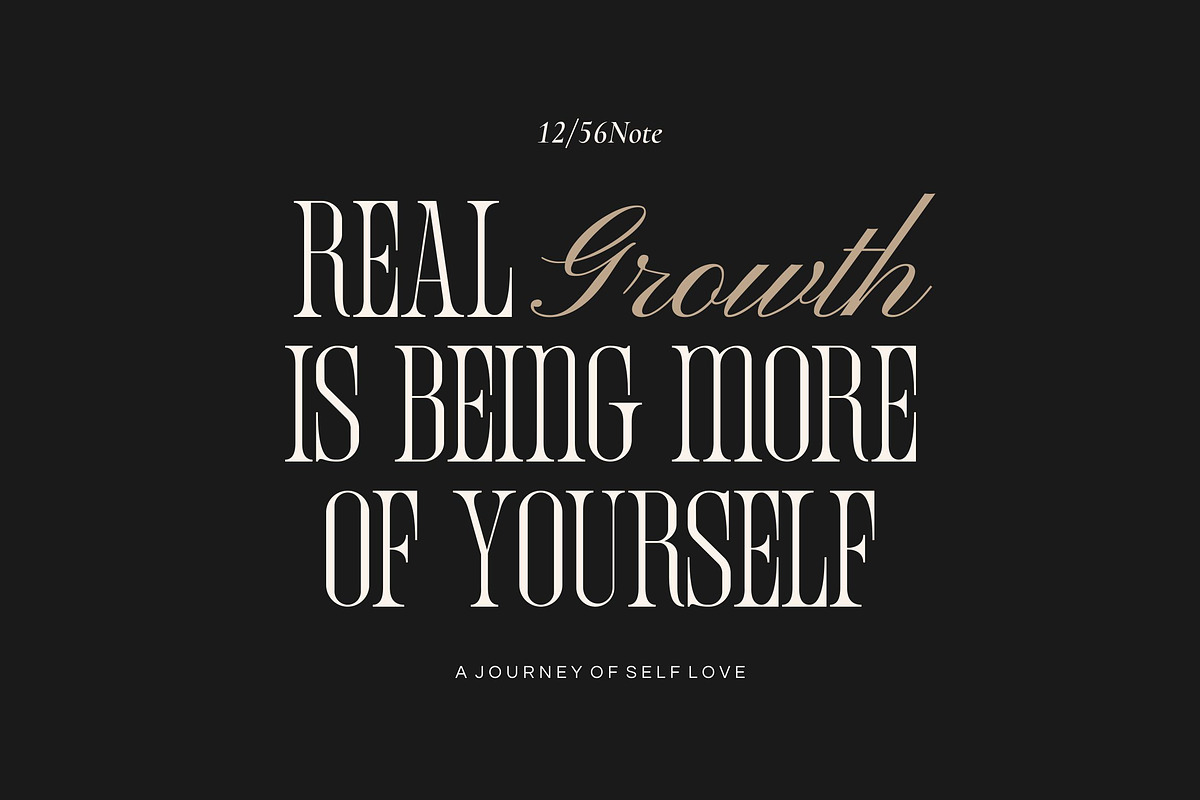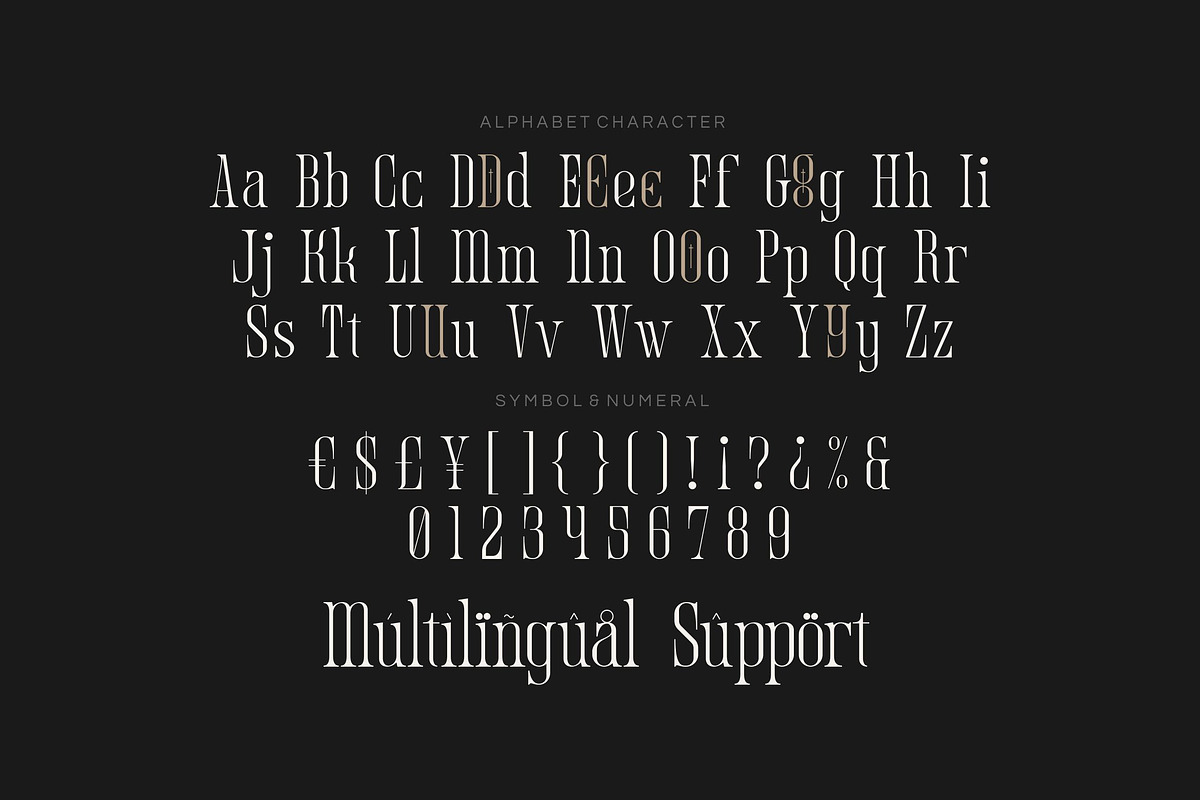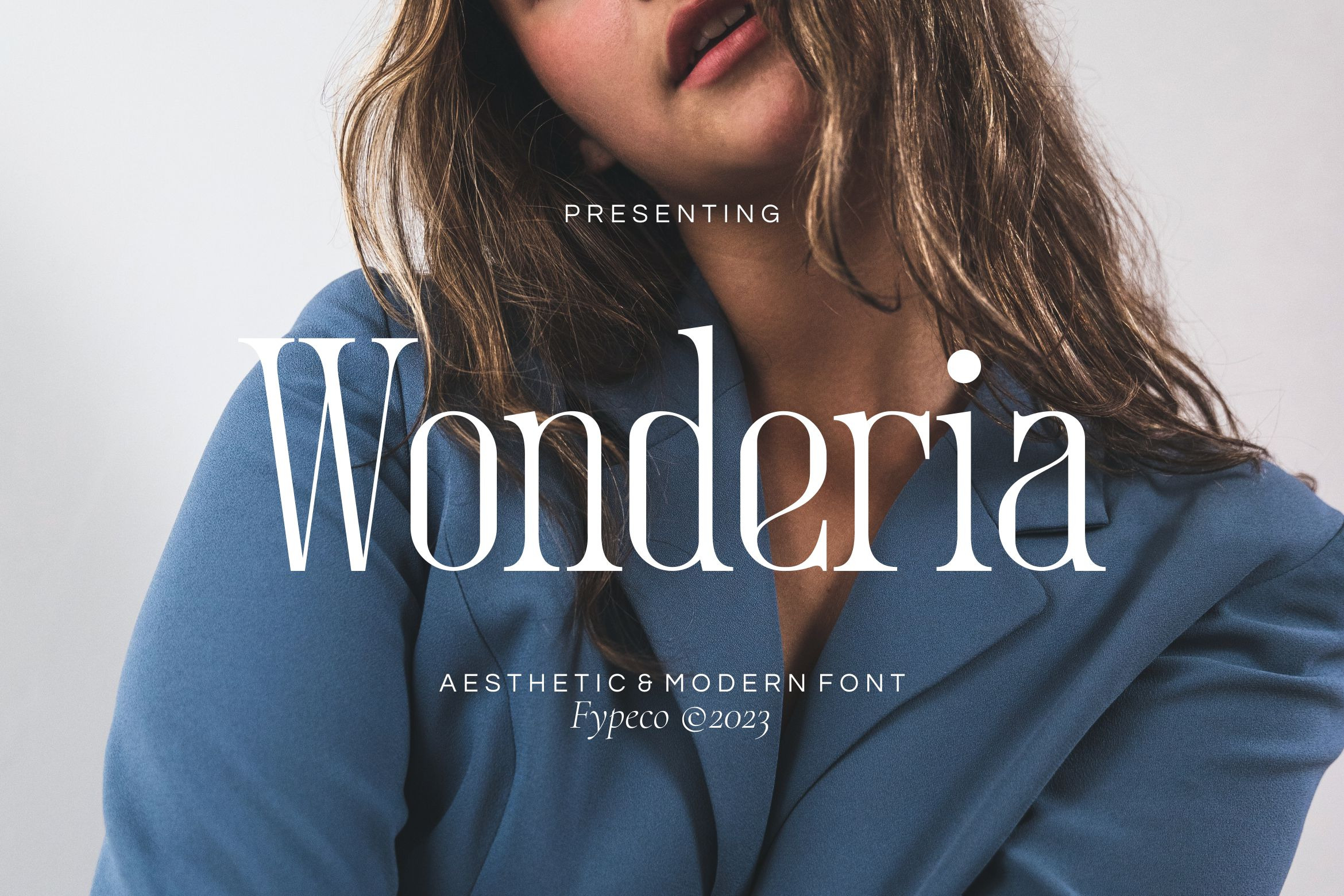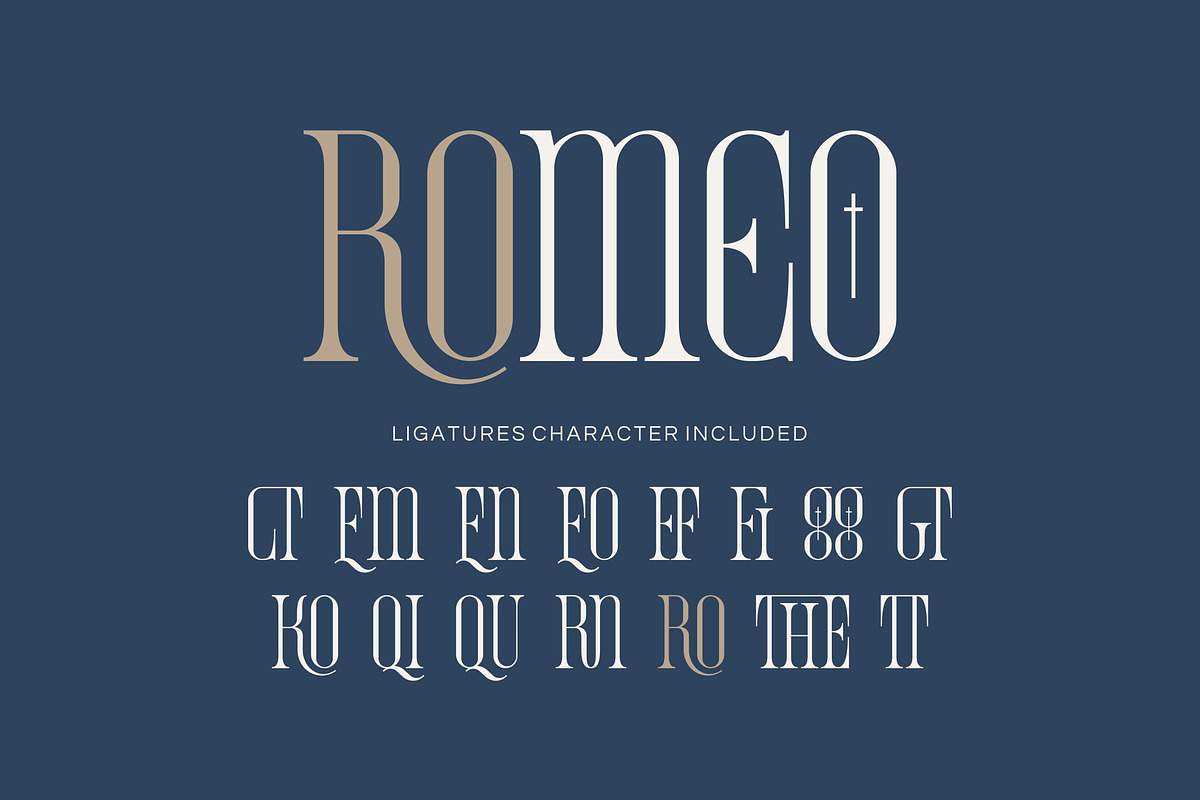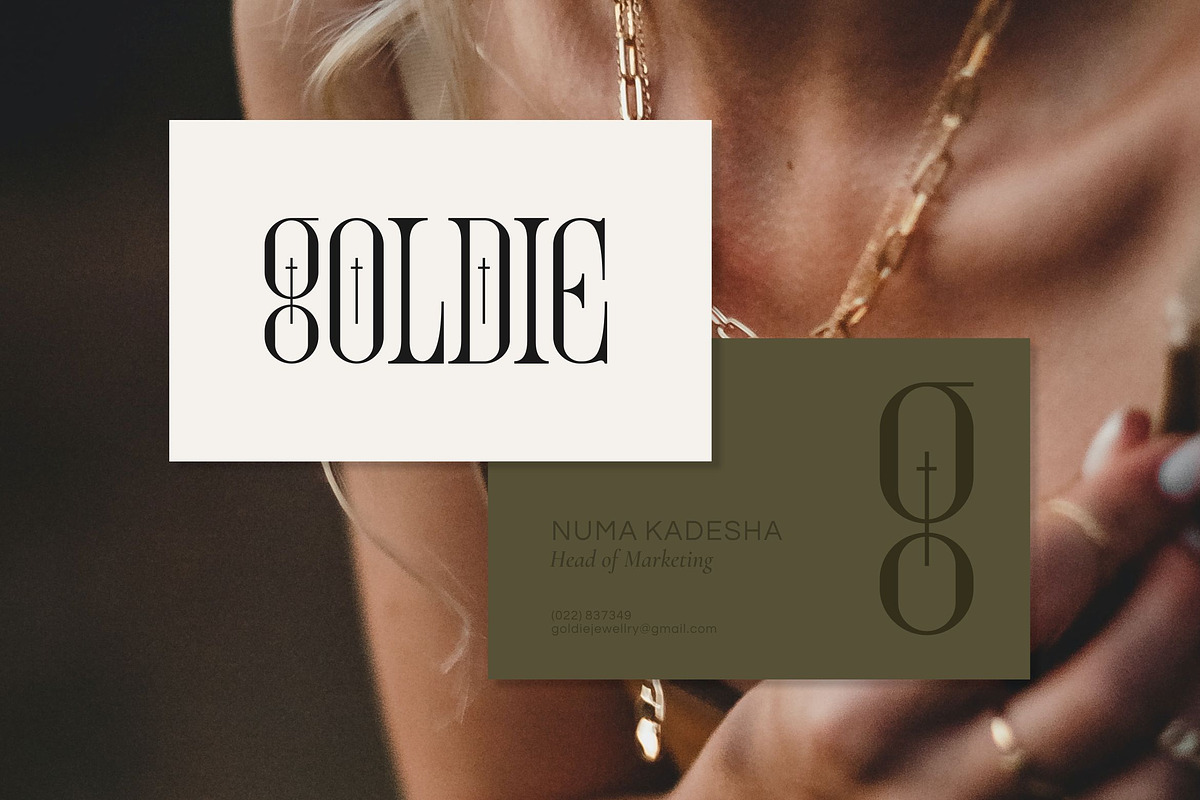
Wonderia - Aesthetic Font
Wonderia is aesthetic & modern font. It's soft curves mixed with high contrast. Great in layout design for quotes or body copy, and will be unique to the use of the fashion typography, logo design. And also multilingual support.